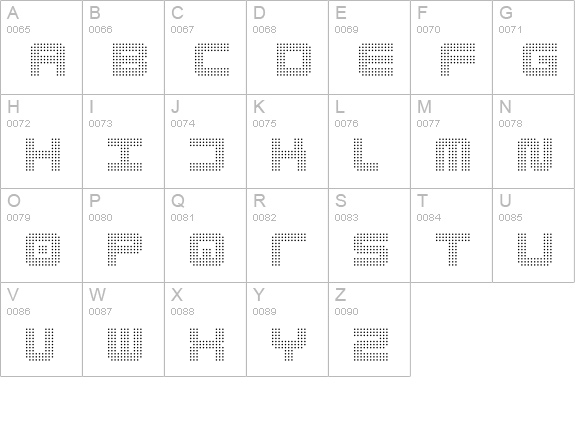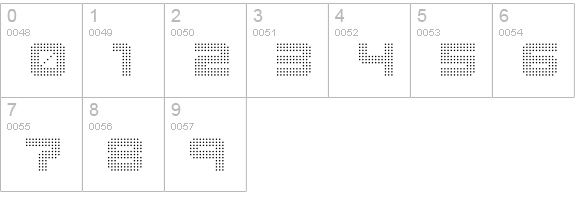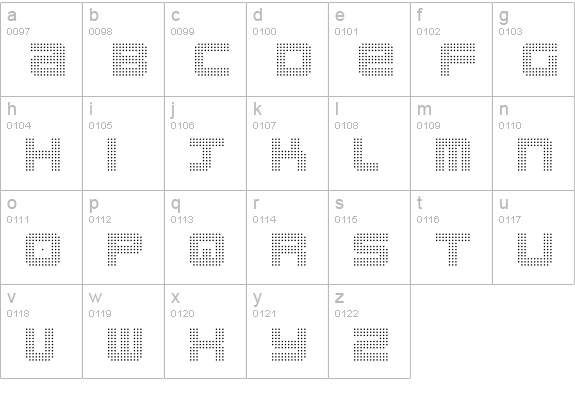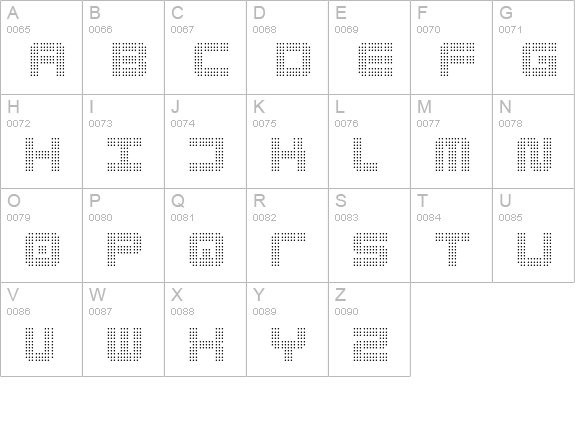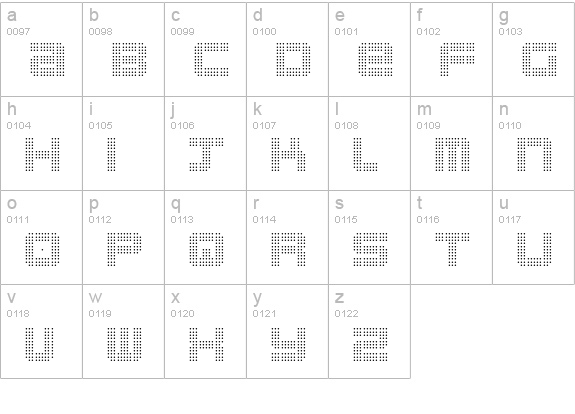
pizzo Light Font Details
pizzo Light is a refined, elegant variant in the pizzo typeface family \xE2\x80\x94 well suited to elegant body text, refined sub-headings, and luxury branding.
Introducing Pizzo Light, a visually stunning font that effortlessly captures the essence of elegance and sophistication. With its delicate and refined strokes, this font exudes a sense of modernity and grace, making it the perfect choice for any design project that requires a touch of class. Pizzo Light offers a harmonious balance between legibility and artistic flair, making it suitable for a wide range of applications, from branding and packaging to editorial design and website headings. Its sleek and streamlined letterforms create a seamless reading experience, ensuring that your message is conveyed with clarity and style. One of the most remarkable aspects of Pizzo Light is that it is available for free download at FontsMarket.com. This means that designers and creatives alike can access this exceptional font without any cost, making it an invaluable resource for those on a budget or simply looking to explore new typographic possibilities. Whether you're a seasoned designer or just starting out, Pizzo Light is a must-have addition to your font library. Its versatility and timeless appeal will undoubtedly elevate your designs, allowing you to effortlessly capture attention and leave a lasting impression. Embrace the beauty of Pizzo Light and transform your projects into works of art, all while enjoying the freedom of a free font.